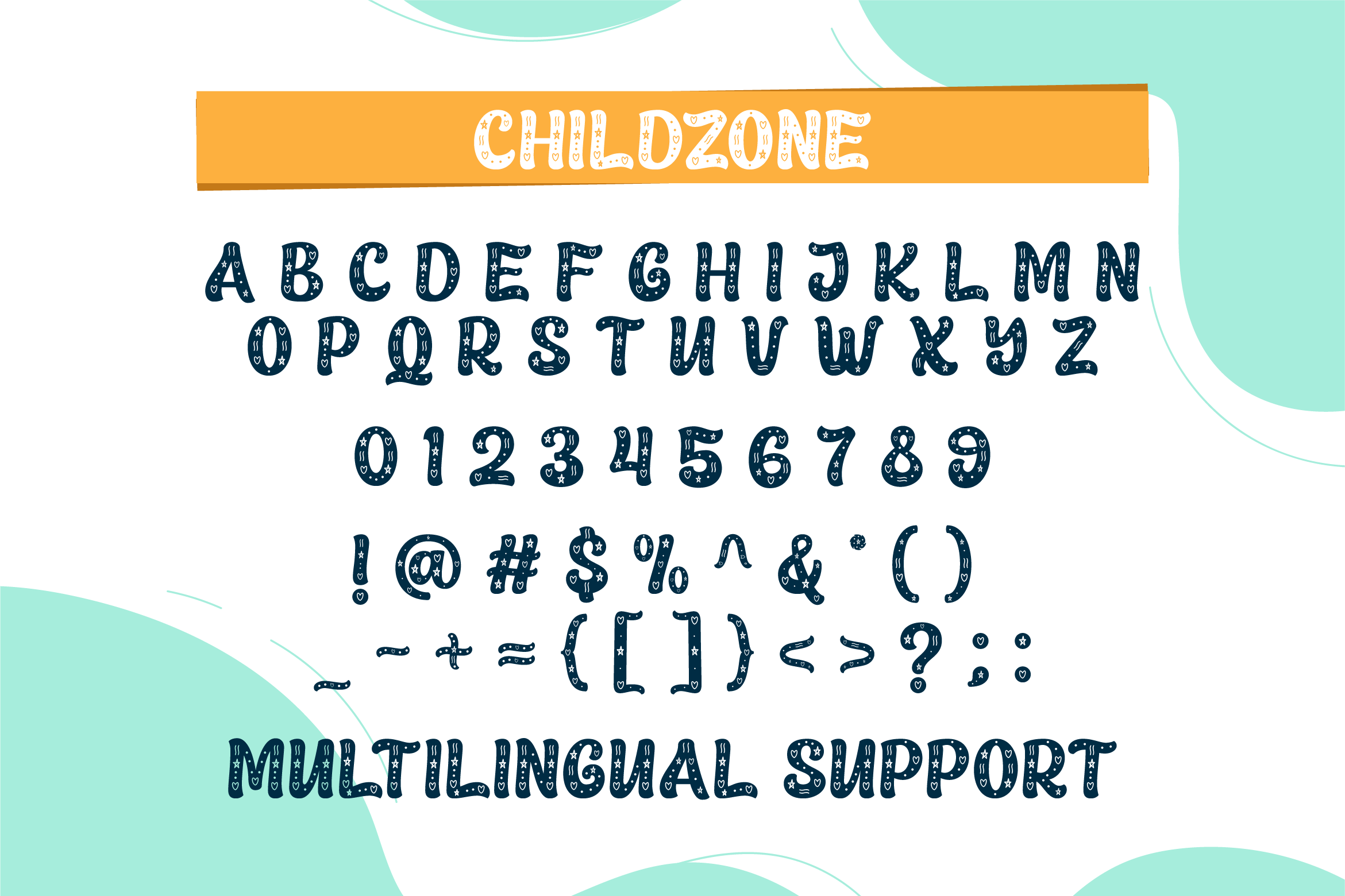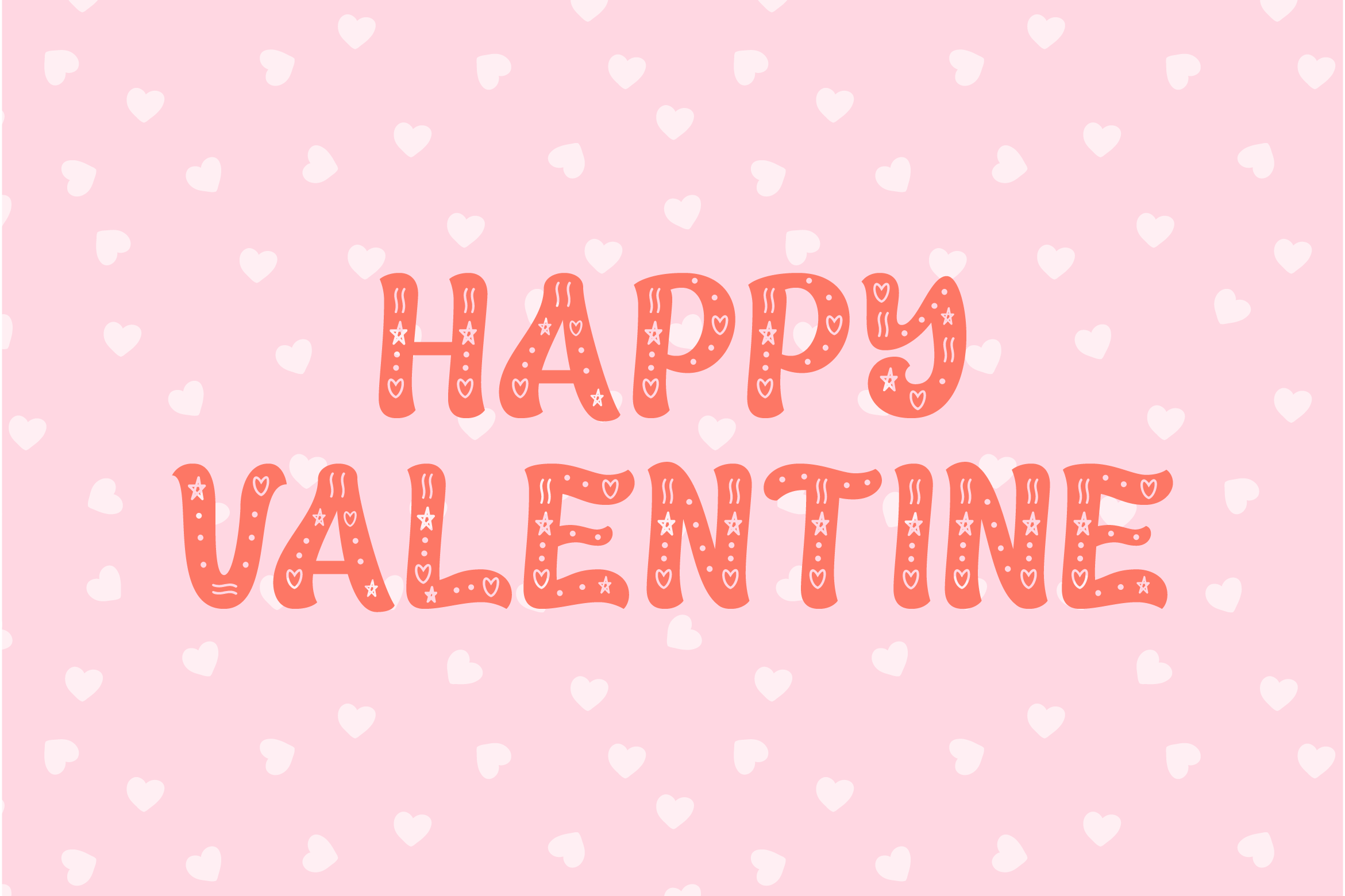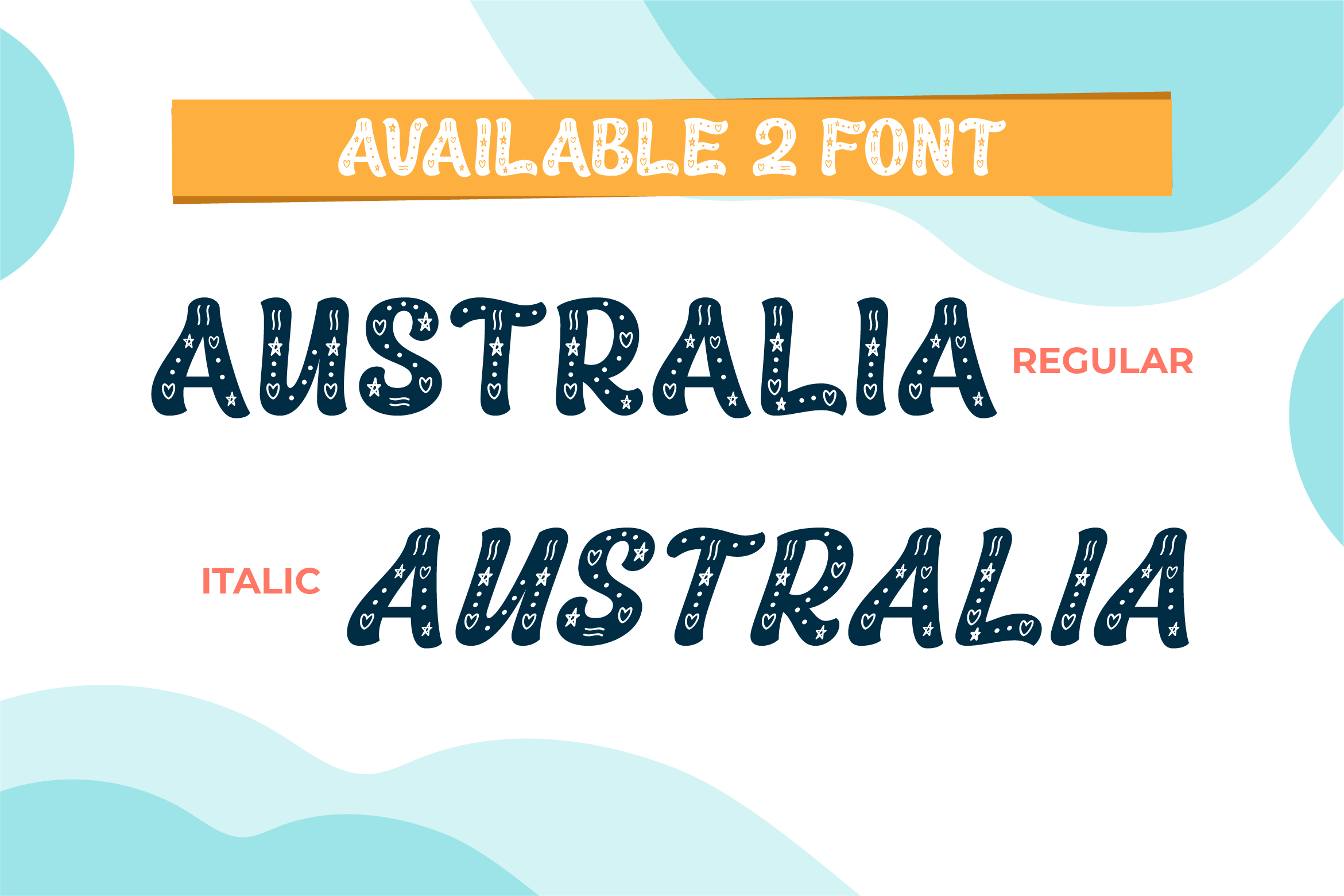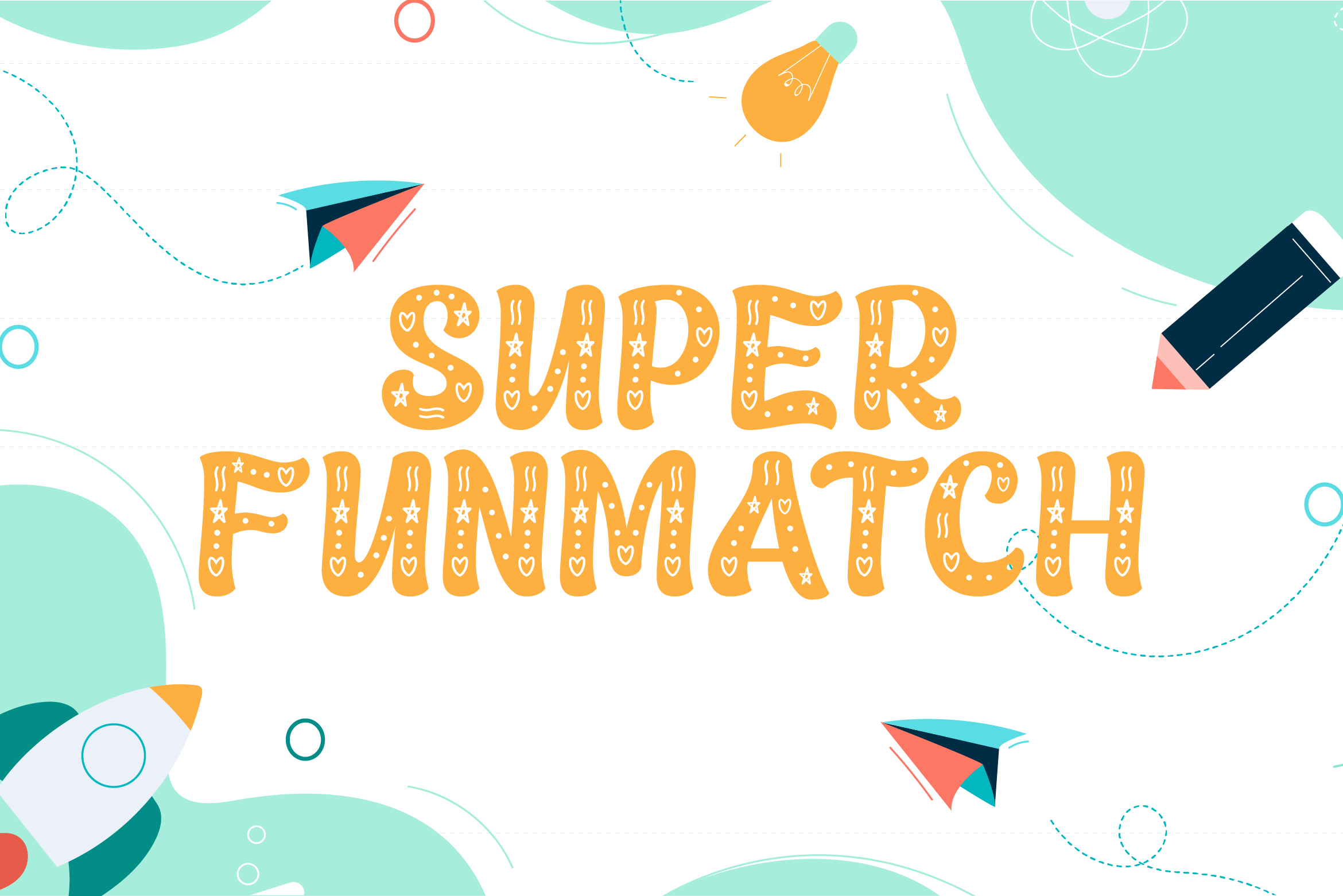
Childzone Font
Childzone Display Font
This is a cool and fun decorative font. It will elevate a wide range of crafting ideas, from cards, to branding, labels and much more. Add it confidently to your favorite creations and let yourself be amazed by the outcome generated.